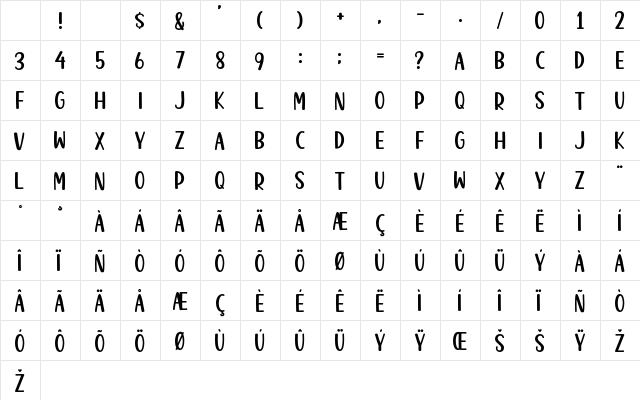
Sunday Farmhouse is a composed and adaptable typeface that performs quietly and consistently across a wide range of design contexts. Its bold stroke weight gives it real presence on the page.